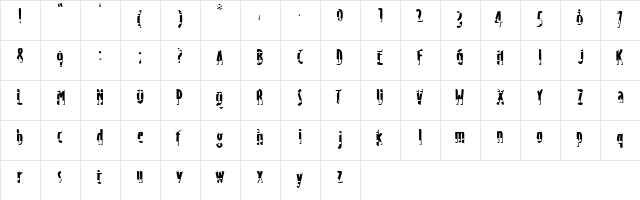
ICEBURG Regular
Design Context for ICEBURG Typeface
ICEBURG is a composed and adaptable typeface that performs quietly and consistently across a wide range of design contexts.